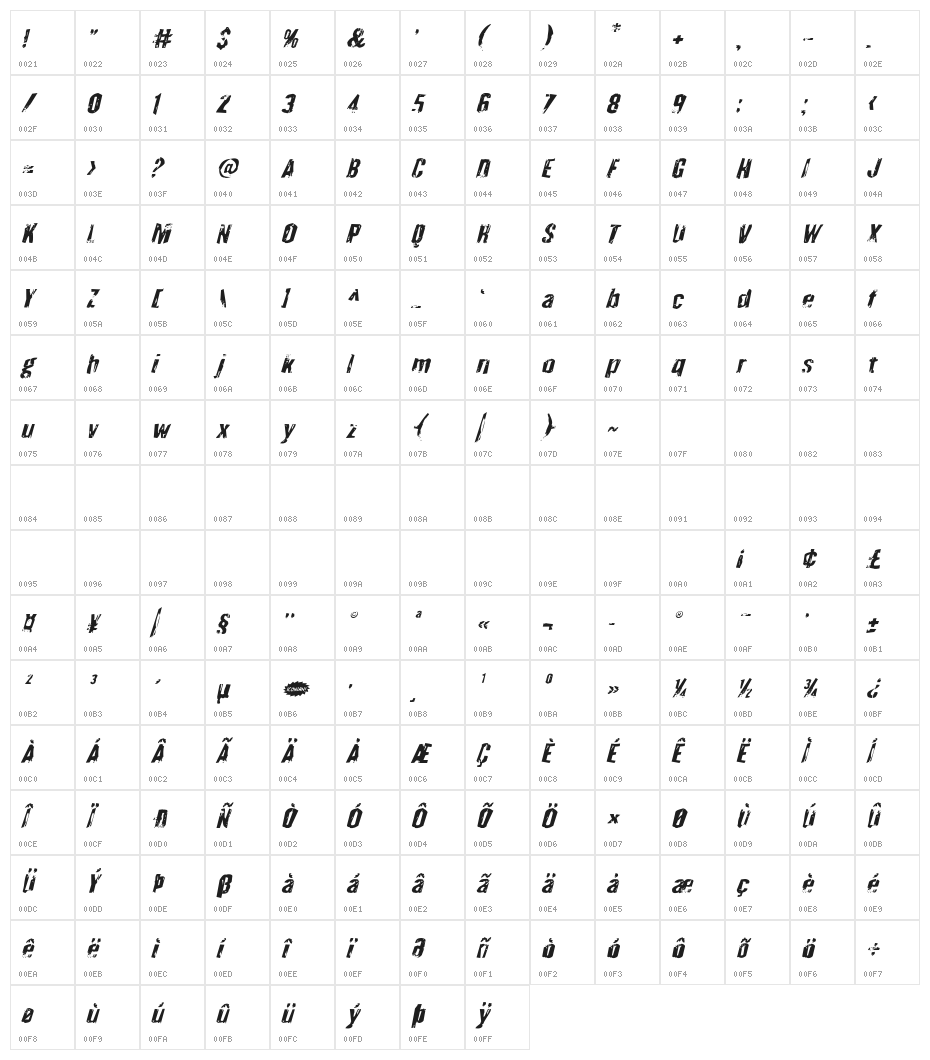
Quarrystone Italic Font
Quarrystone Italic Description
This font features a distressed, grunge style with an italic slant, giving it a dynamic and edgy appearance. The characters are bold and have a rough texture, suggesting a worn or weathered look. The uppercase and lowercase letters maintain a consistent style, with jagged edges and irregularities that add to the font's rugged charm. The numbers and special characters follow the same design principles, ensuring a cohesive look across all glyphs. This font is ideal for projects that require a bold statement or a gritty, urban aesthetic.
| Overall Style | Grunge, Urban, Edgy |
| Proposed Projects | Perfect for album covers, posters, streetwear branding, or any project needing a gritty, urban feel. |